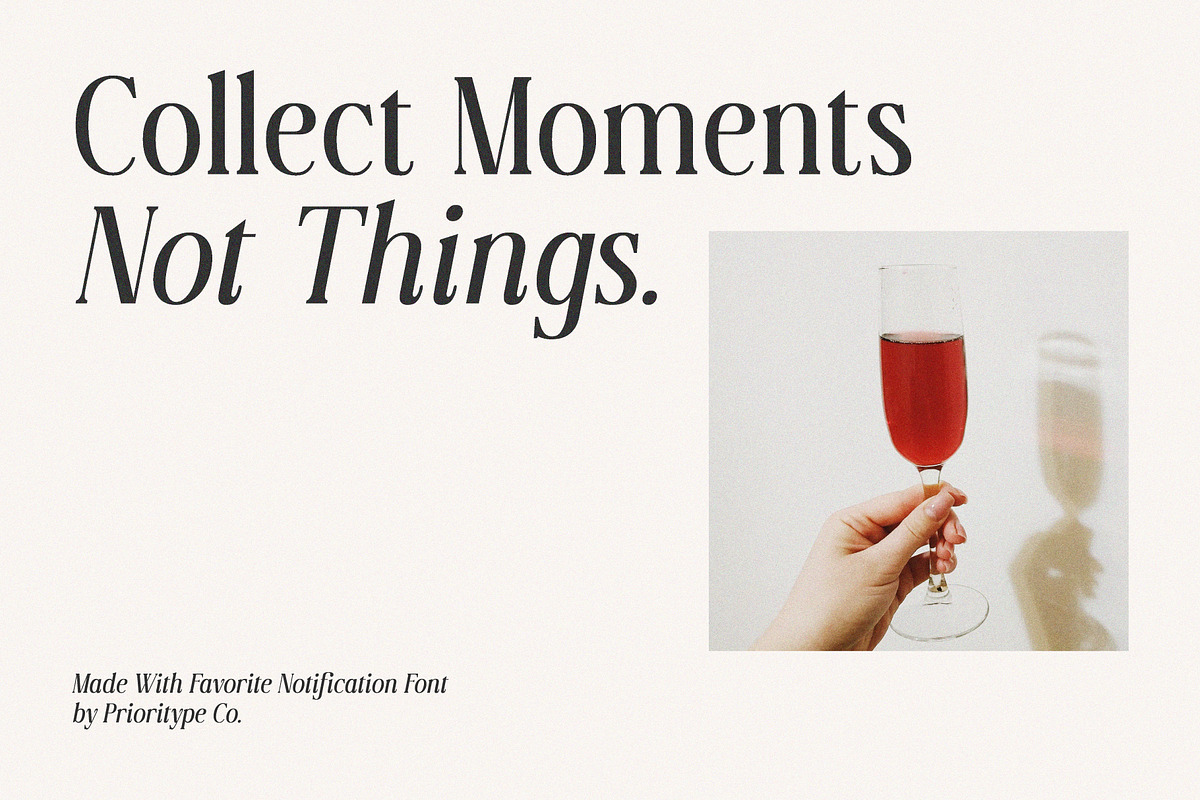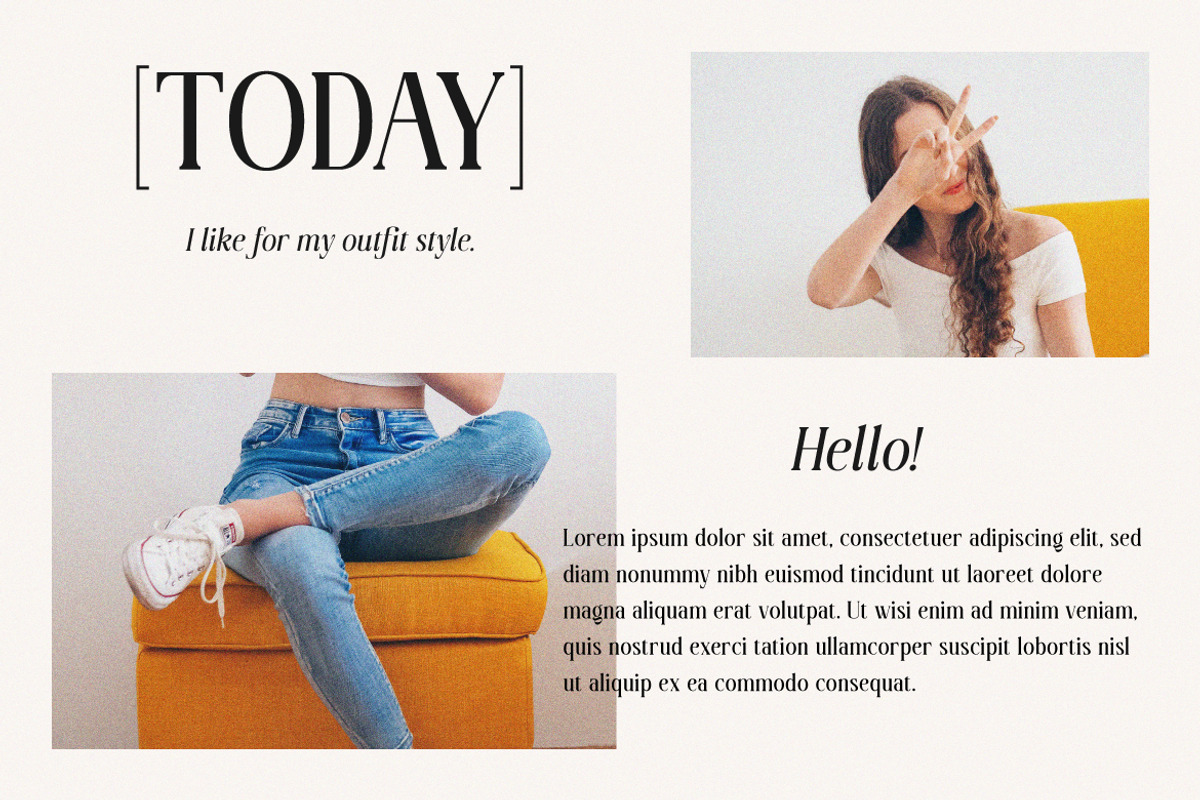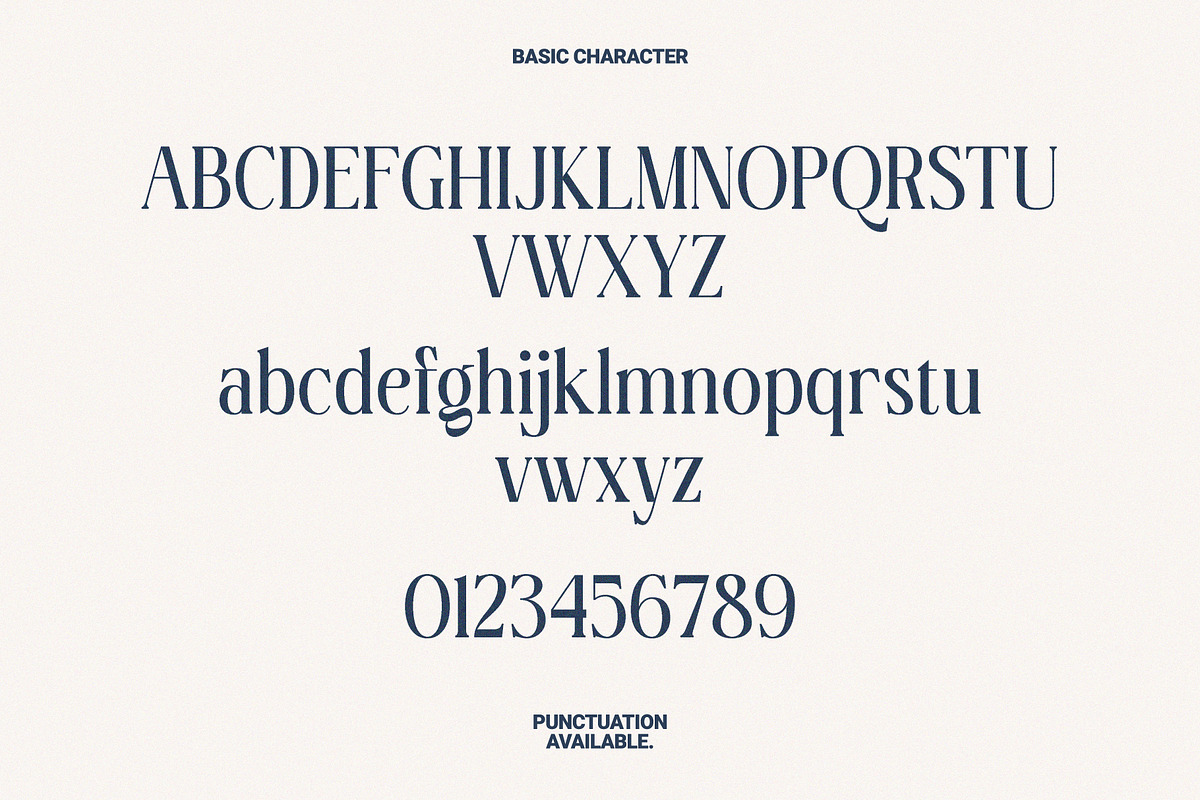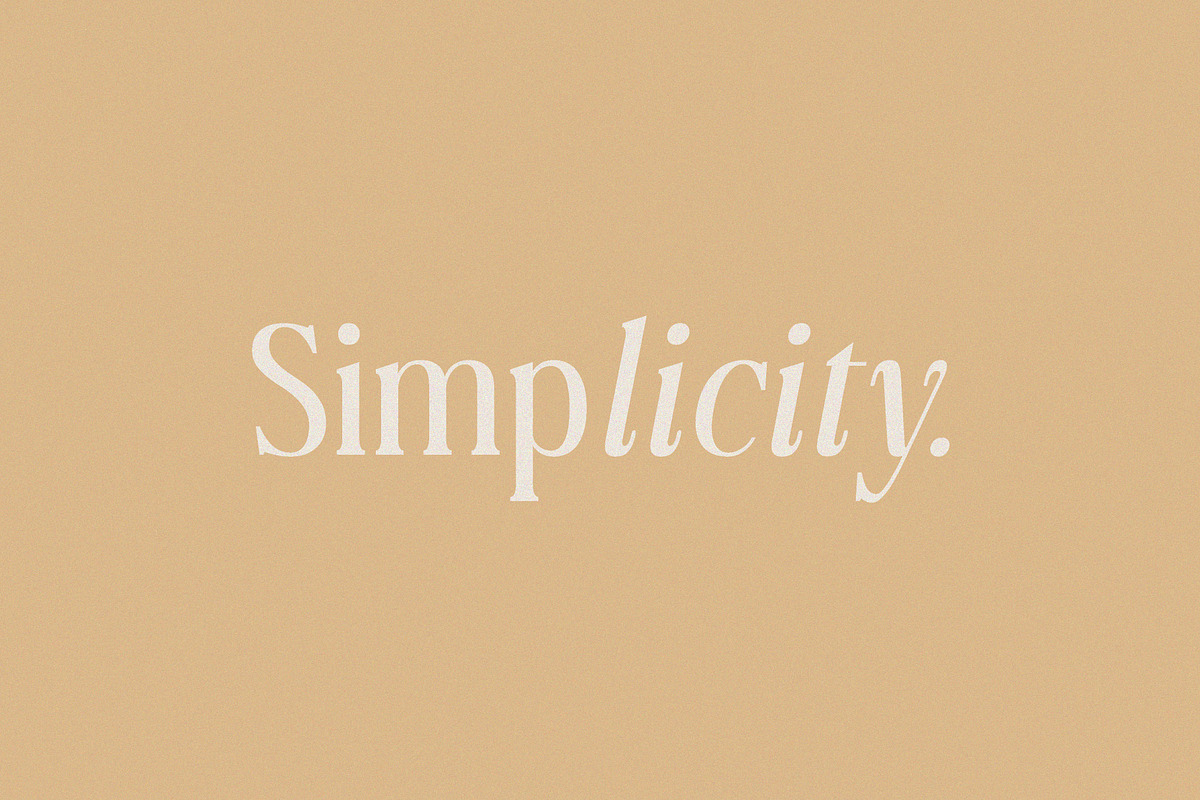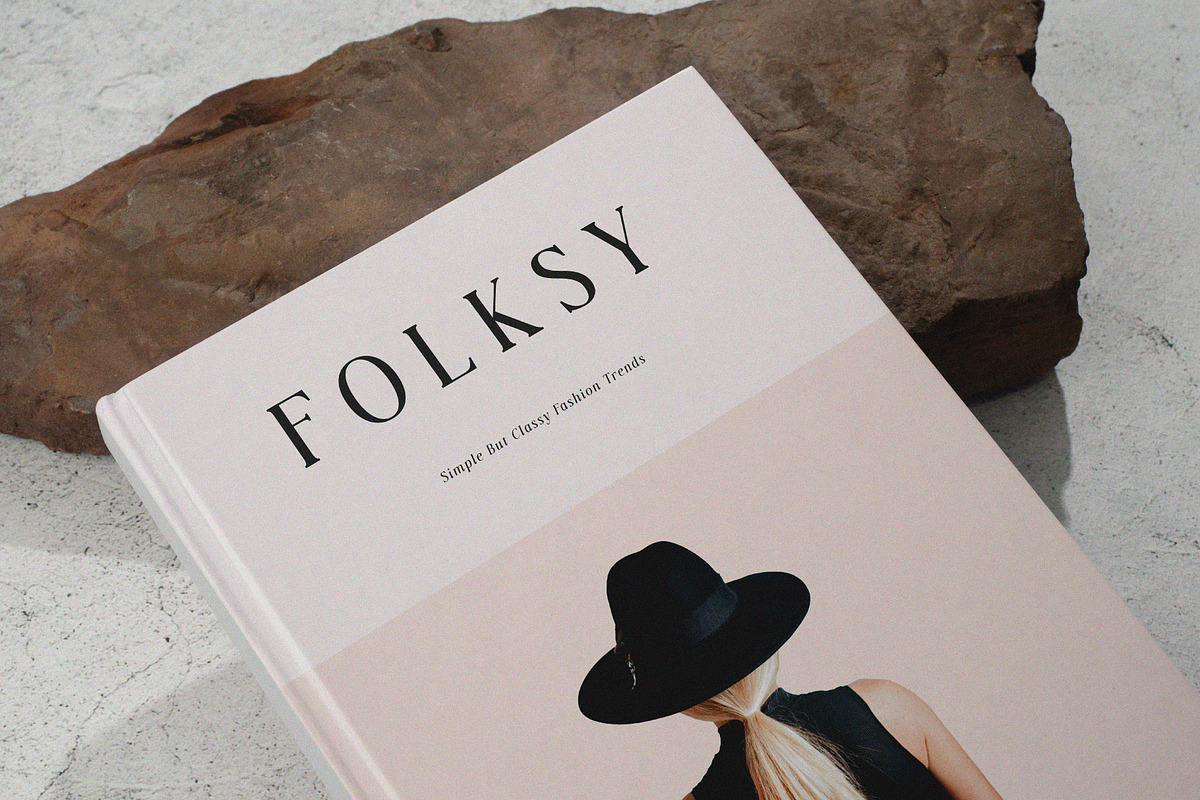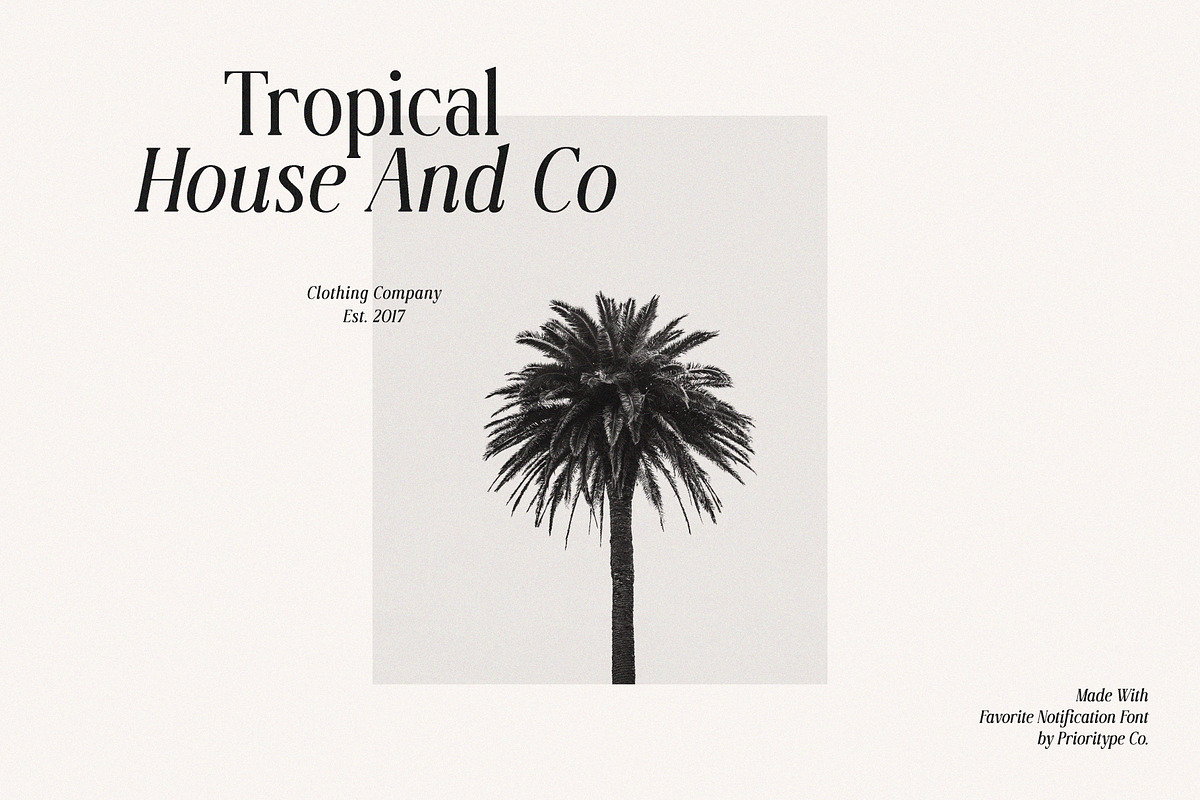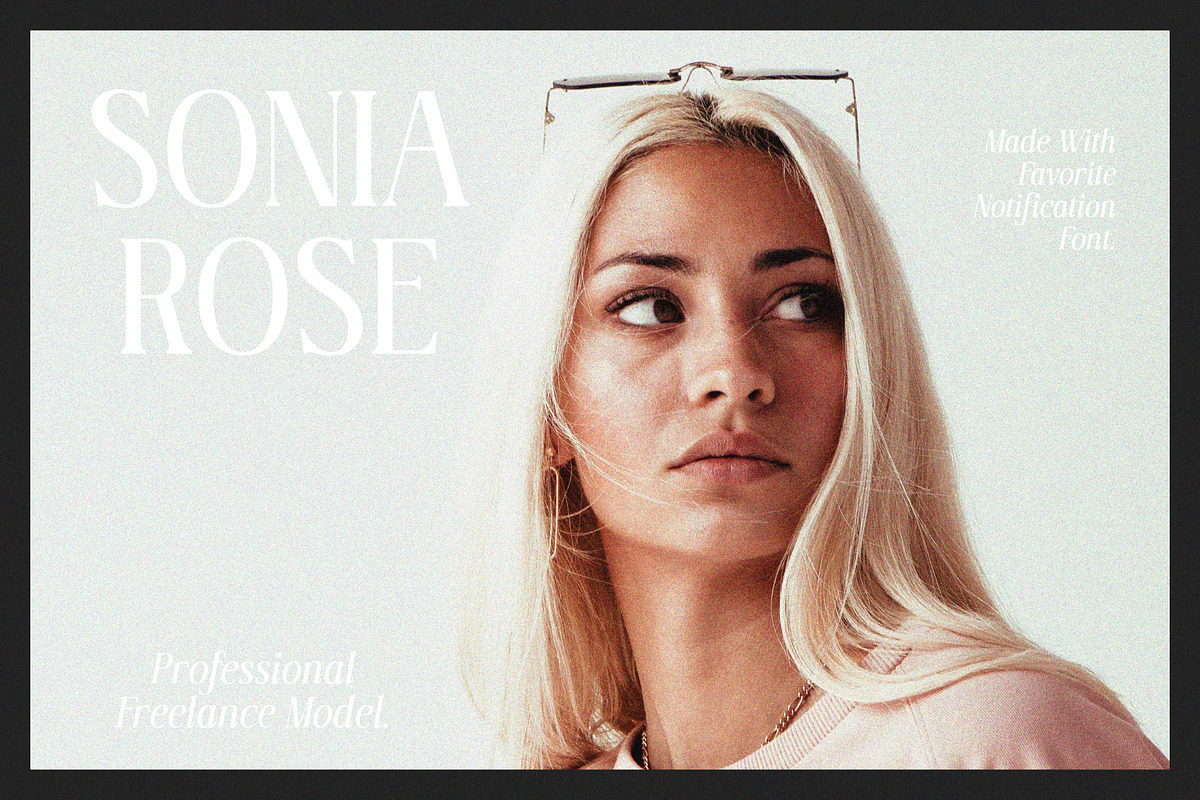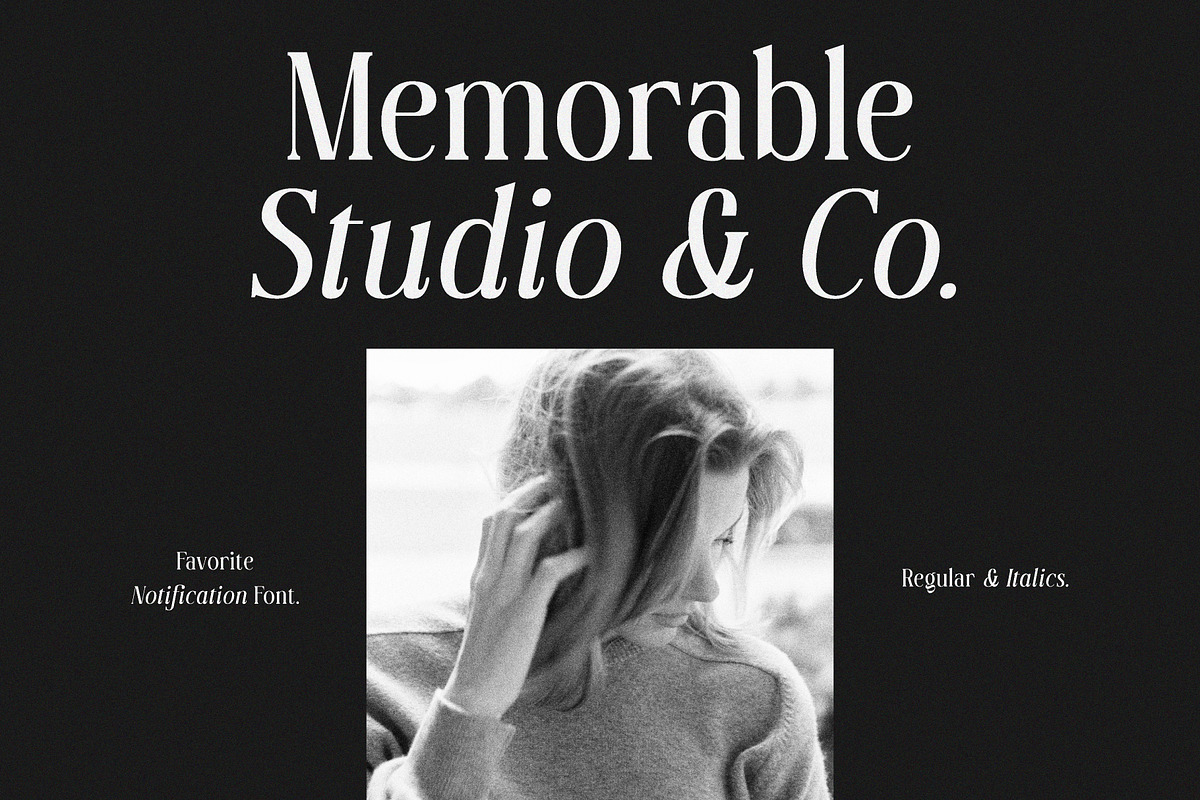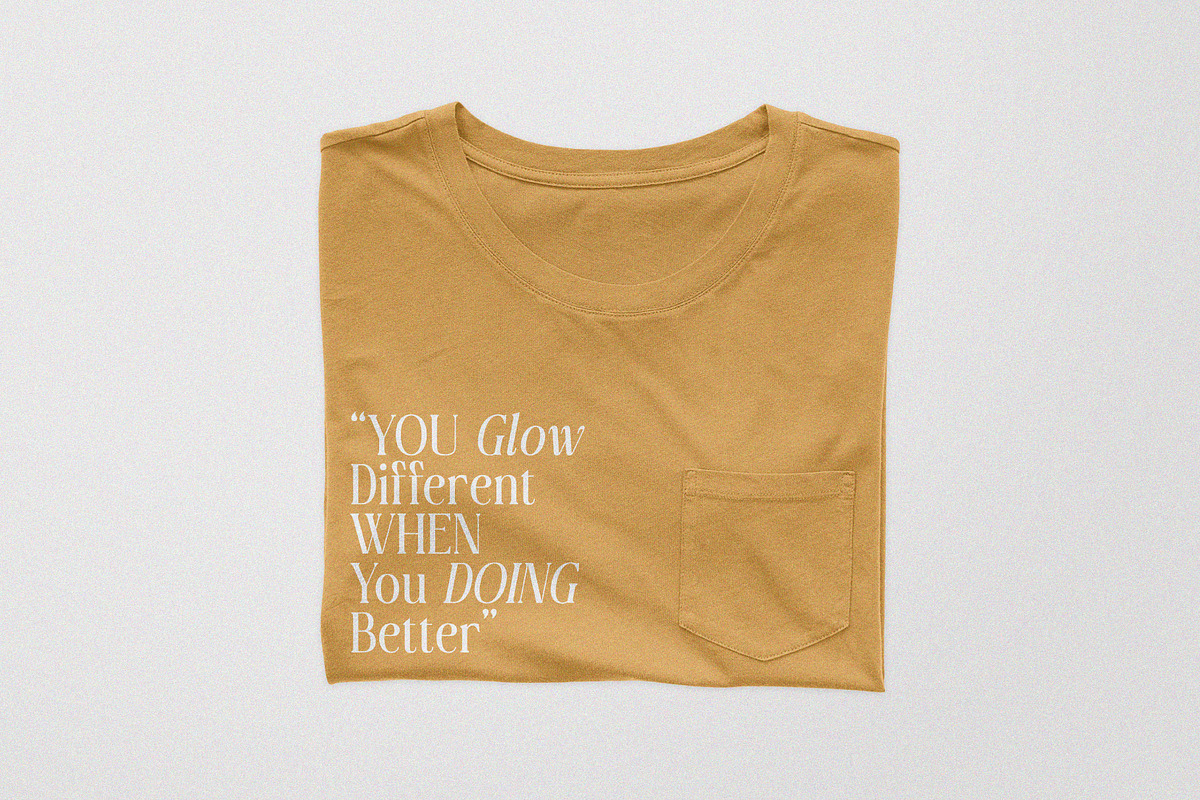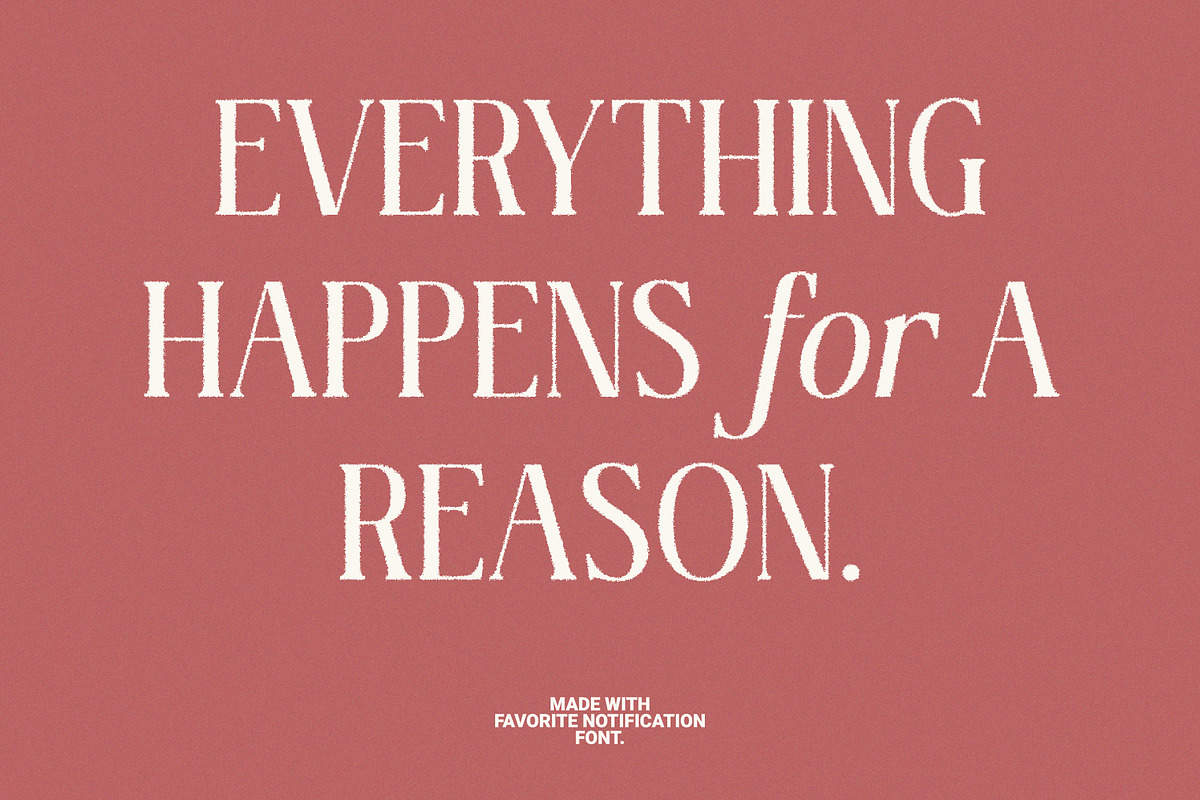
Favorite Notification
Introducing a new typeface. Yes, "Favorite Notification" is a modern and classic style serif font. The combination of regular & italic is very pleasing to the eye. It is suitable for branding designs, invitations, magazines and so on.
- Features: Uppercase, Lowercase, Numeral, Punctuation, Multilingual & Ligatures.